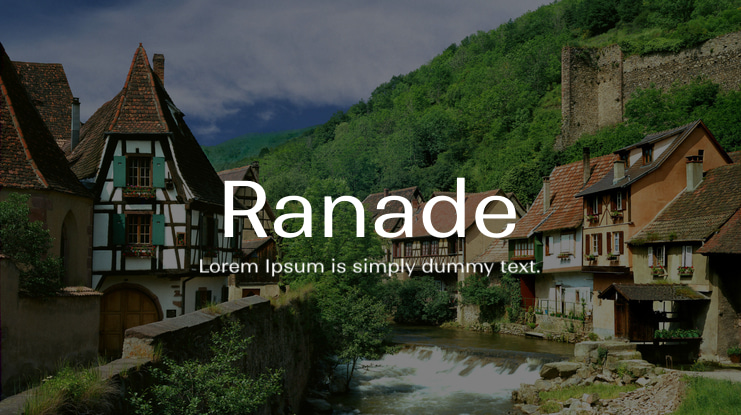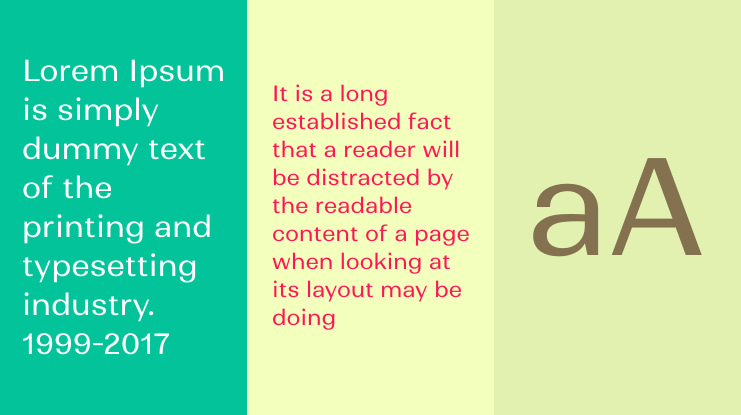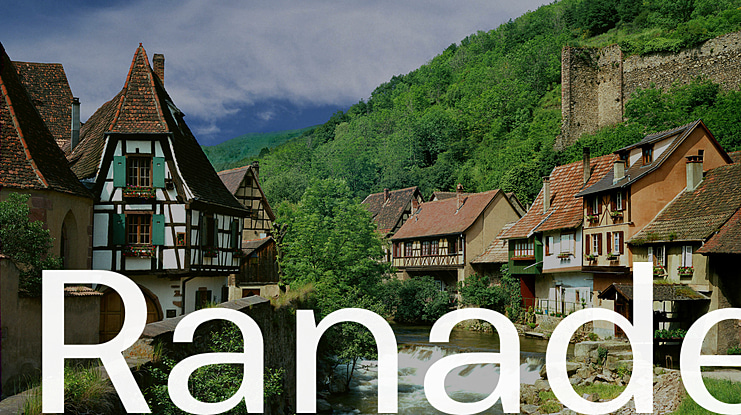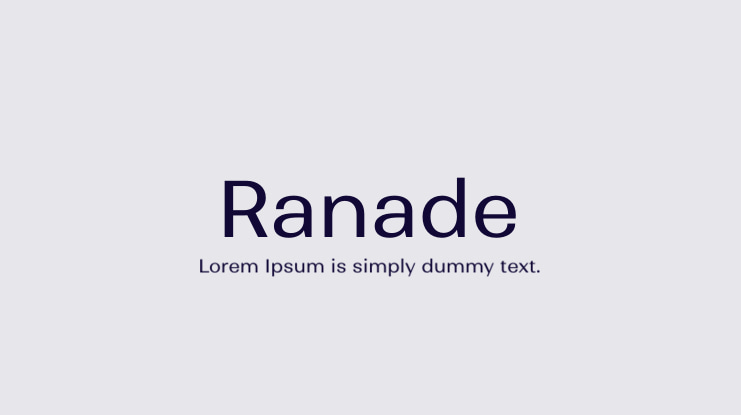
Ranade Font Family
Easha Ranade
This is a bold modern high-contrast sans serif typeface that balances visual interest with restraint. It also includes a little kick, separating it from other typefaces in that genre: its diagonal letters feature stark contrast. The diagonals that are typically written with thin strokes in classic serif typefaces maintain thin strokes in Ranade as well, even in the family’s lightest weights. Speaking of weight, Ranade features ten font styles spread across five weights; these range from Thin through Bold. Every weight has both an upright font and an italic on offer. The italic fonts in Ranade are designed in the ‘oblique’ style. The fonts feature a tall x-height. Ascenders rise slightly above the tops of the capital letters, and the the numerals are slightly shorter than the uppercase letters’ height. Lines of text in Ranade can be set tightly and compactly; the uppercase includes no descending elements – both the ‘J’ and ‘Q’ keep all of their strokes between the baseline and the cap-height. Ranade is an excellent selection for use in branding and corporate design. The fonts were developed by Easha Ranade at the Indian Type Foundry in Ahmedabad/India.